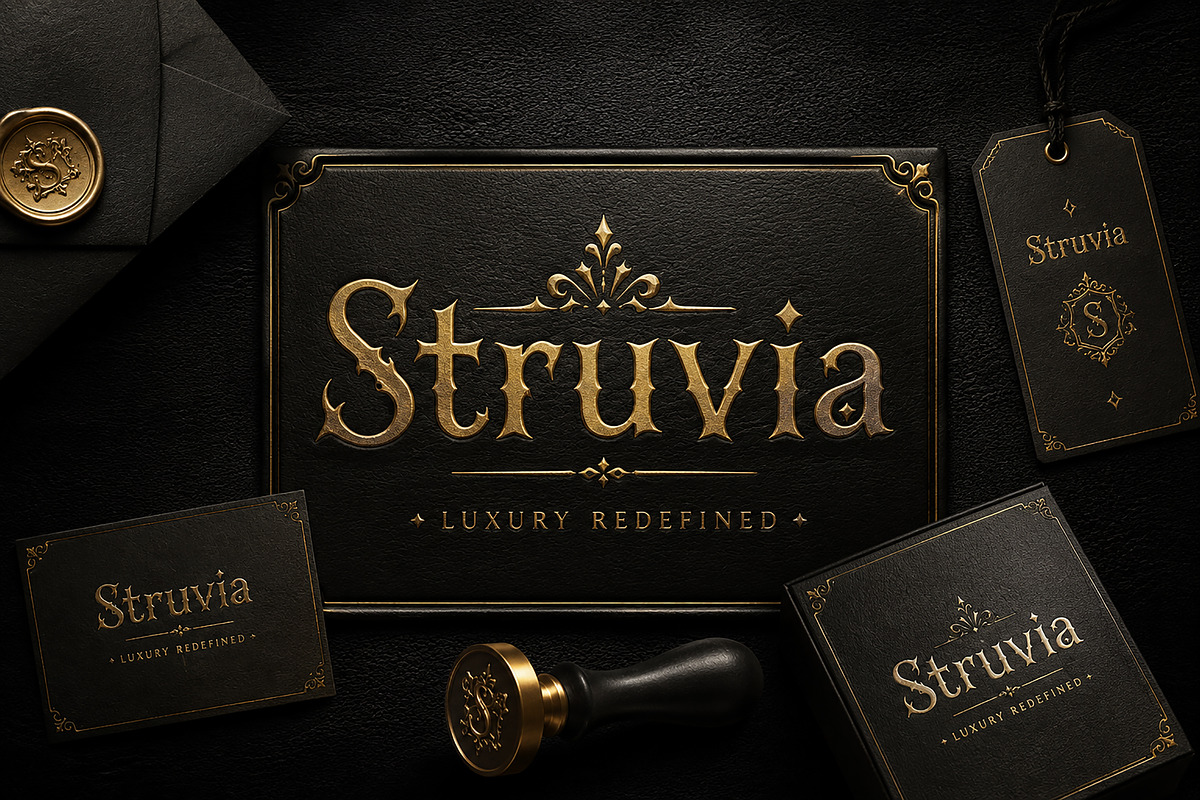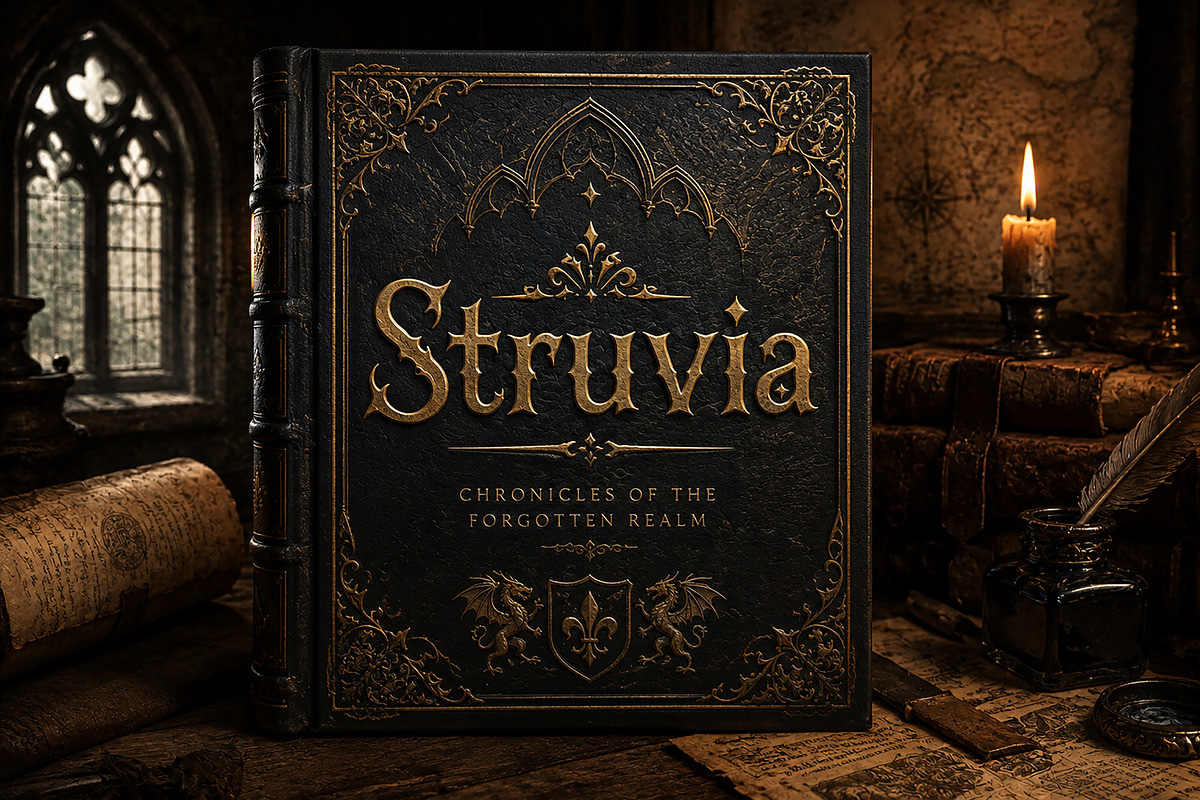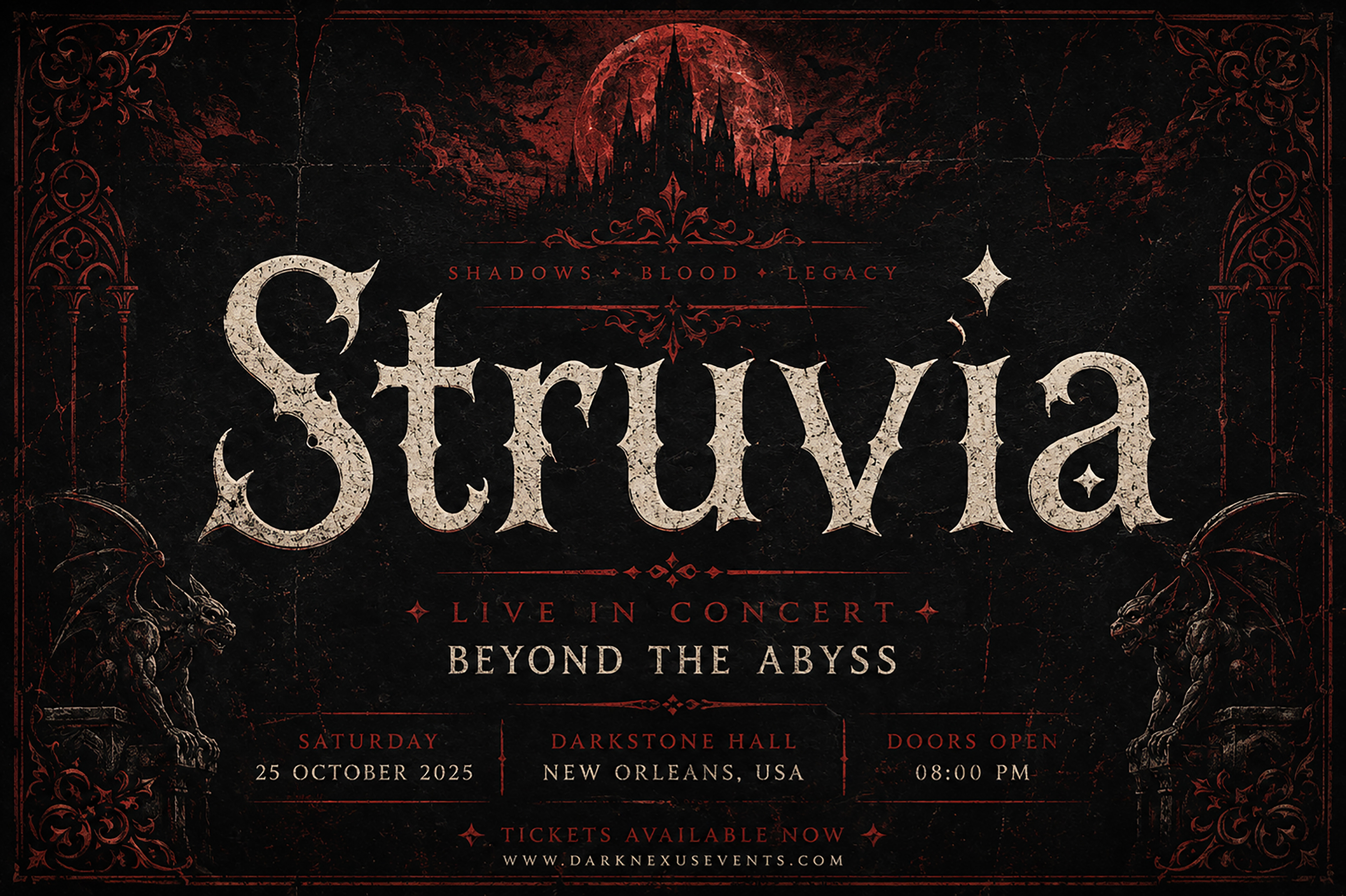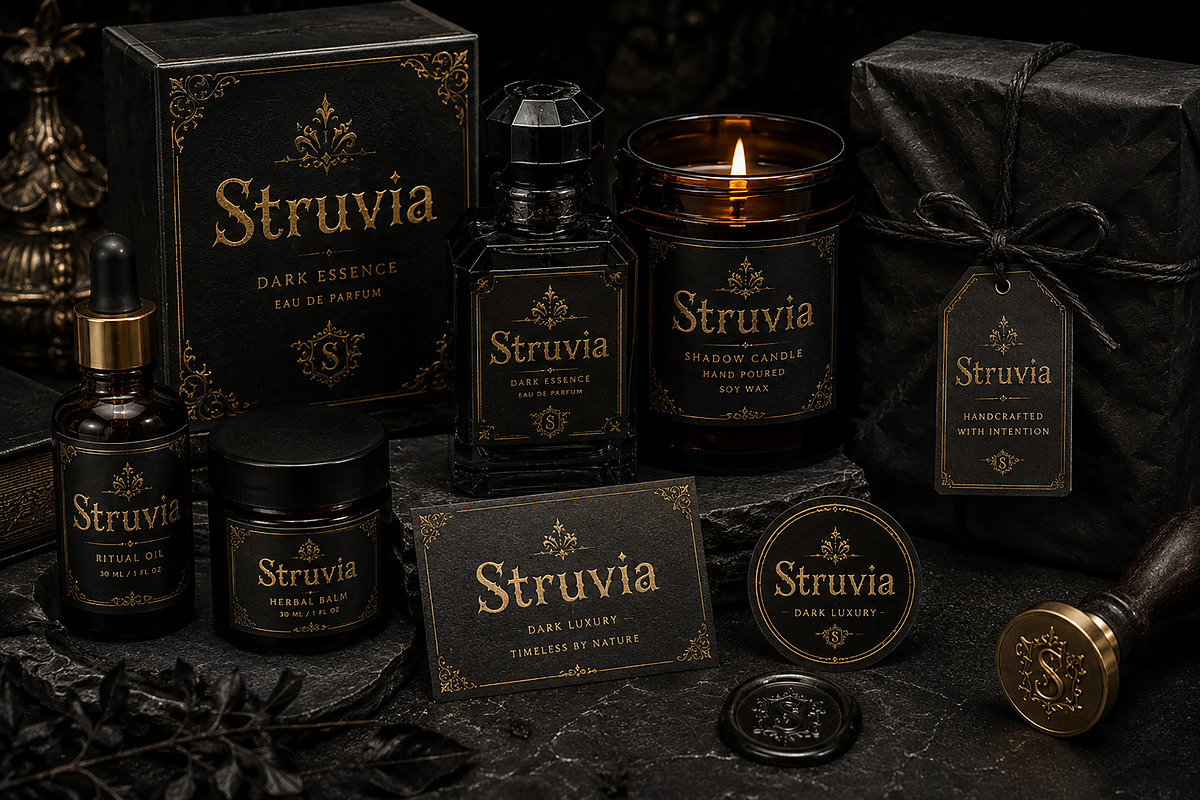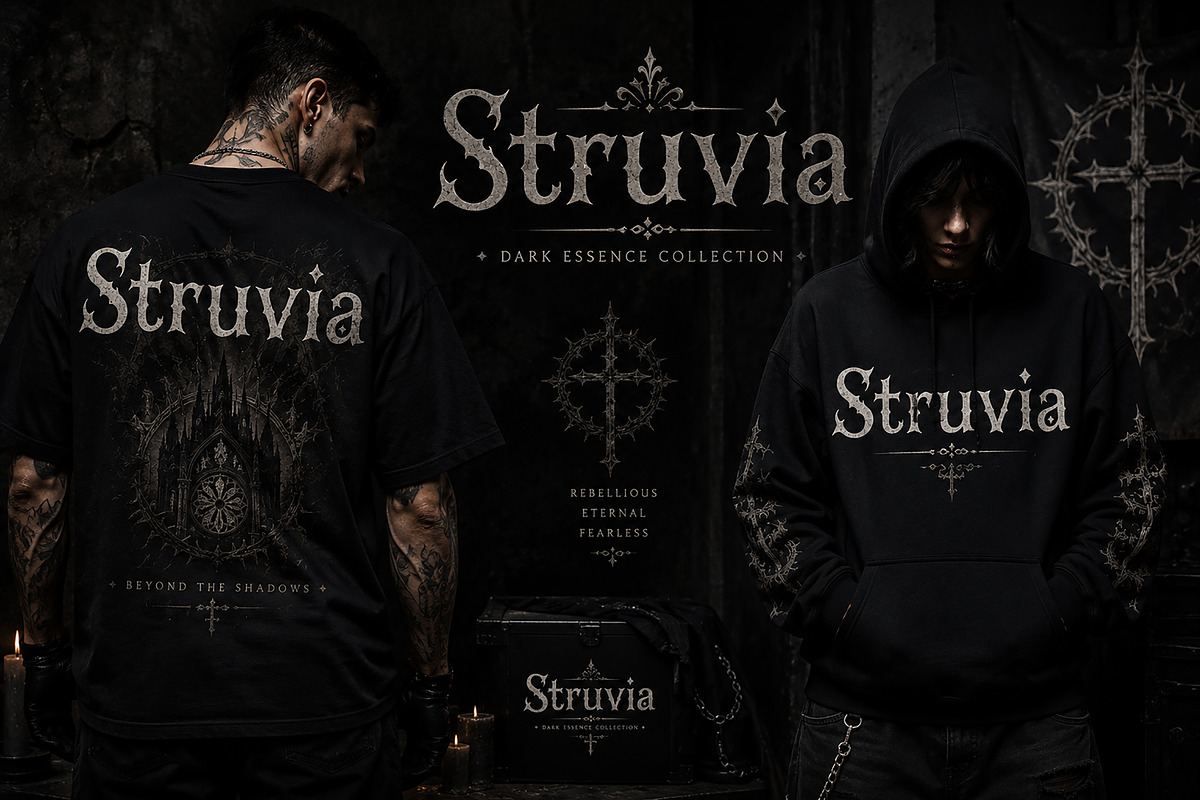
Struvia — Gothic Display Font
Struvia is a bold and distinctive gothic display font inspired by medieval typography, dark aesthetics, and classic blackletter forms. Its sharp details, dramatic curves, ornamental terminals, and powerful letterforms create an instantly recognizable visual style.
Designed to make a strong impact, Struvia is perfect for projects that need a dark, mysterious, medieval, luxurious, or rebellious atmosphere. Its striking appearance works beautifully for both digital and print applications, making it a versatile choice for designers, brands, and creatives.
Struvia is especially suitable for gothic logos, luxury branding, book covers, fantasy artwork, music posters, metal artwork, apparel, T-shirt designs, packaging, labels, candles, perfume branding, merchandise, invitations, album artwork, and editorial designs.
Whether you're creating a medieval-inspired identity, a dark fashion collection, a fantasy title, or an eye-catching product label, Struvia brings a dramatic and sophisticated gothic character to your designs.
Bold Gothic / Blackletter-inspired design
Strong medieval and historical character
Dramatic decorative details
Excellent for large display typography
Ideal for branding and logo concepts
Suitable for print and digital projects
Perfect for dark, luxury, fantasy, and alternative aesthetics